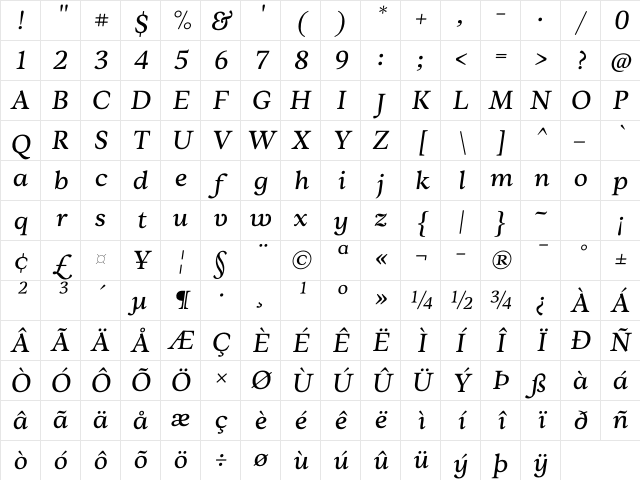
MuseeItalic is a composed and adaptable typeface that performs quietly and consistently across a wide range of design contexts. The slanted form adds forward momentum and visual energy.
Pro Tip: Use MuseeItalic for emphasis, pull quotes, and subheadings where its slanted energy can add rhythm to the layout.